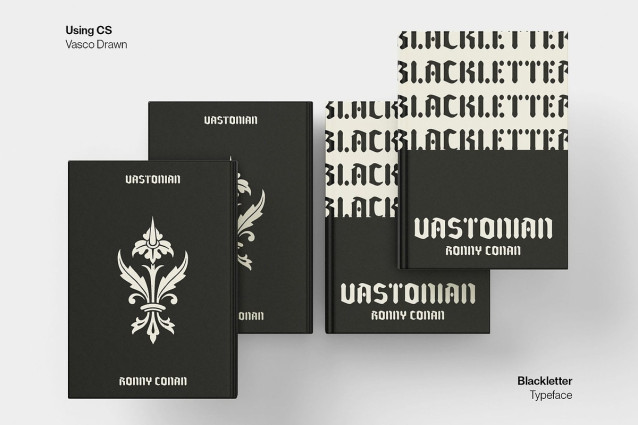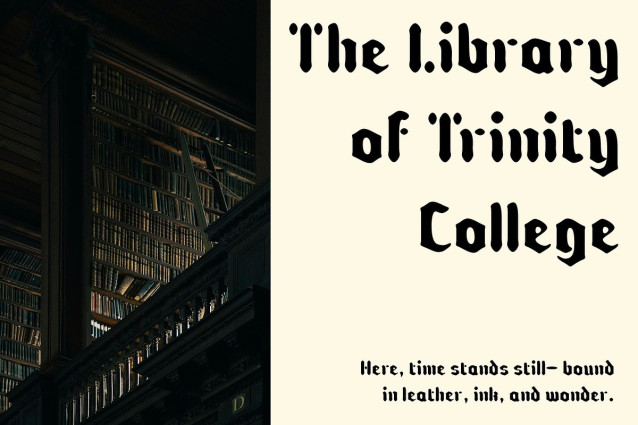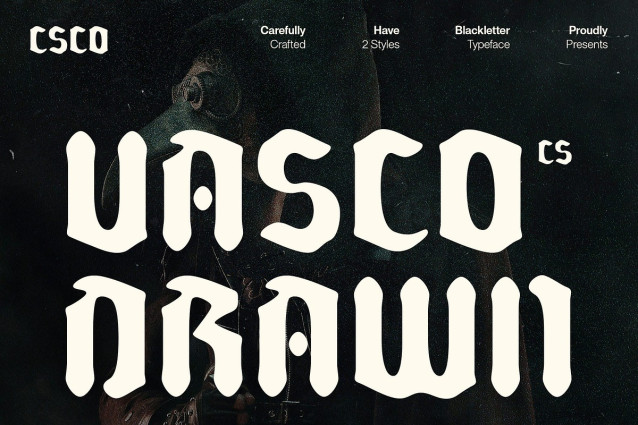
CS Vasco Drawn Font
CS Vasco Drawn Font is a modern blackletter display font that reimagines traditional gothic letterforms with a cleaner, more condensed silhouette. It retains the broken structure and ornamental drama of classic blackletter but refines it into a shape that feels bold, modern, and visually powerful—perfect for today’s edgy design needs.
Hand-Drawn Texture for Raw Expression The font is layered with a drawn effect, infusing each letter with a rough, organic texture that mimics hand-drawn strokes. This adds a sense of grit, imperfection, and individuality, giving the font a personal, expressive tone. The result is a typeface that feels alive with energy, as if sketched with purpose and intensity.
Visual Impact with Dark Character CS Vasco Drawn’s dense weight and bold presence create a visually intense and atmospheric effect. Its dramatic style is ideal for compositions that demand attention while expressing depth, mystery, or rebellion. Whether used in large headers or layered design elements, it delivers undeniable visual impact with a unique aesthetic voice.
Ideal for Alternative and Expressive Projects This font is perfect for music-related visuals, streetwear branding, experimental posters, or any gothic, dark, or underground-themed design. With its fusion of classic blackletter forms, modern structure, and handcrafted artistry, this artistic font offers designers a distinctive and emotionally charged tool to create memorable, character-rich work.